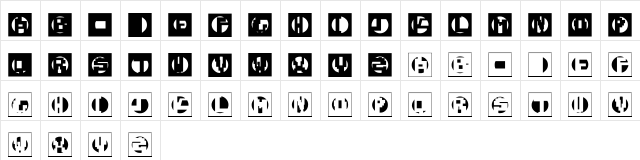
TechnoMK Regular Font Preview
TechnoMK Regular
Design Context for TechnoMK Typeface
TechnoMK has a distinctly futuristic character, with geometric precision and clean angles that feel at home in technology, gaming, and sci-fi contexts.